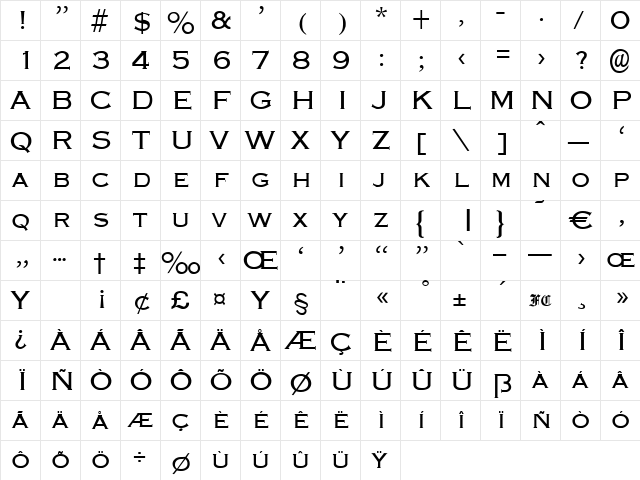
Labrador Regular
Design Context for Labrador Typeface
Labrador takes a measured approach to typography — its balanced proportions and neutral character make it a reliable workhorse for both digital and print work.